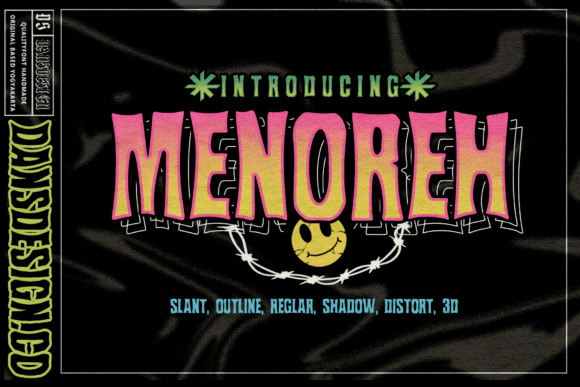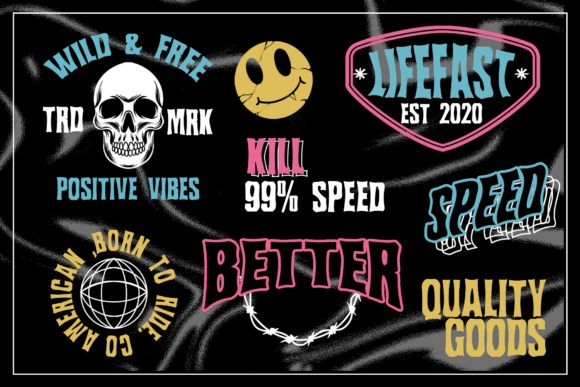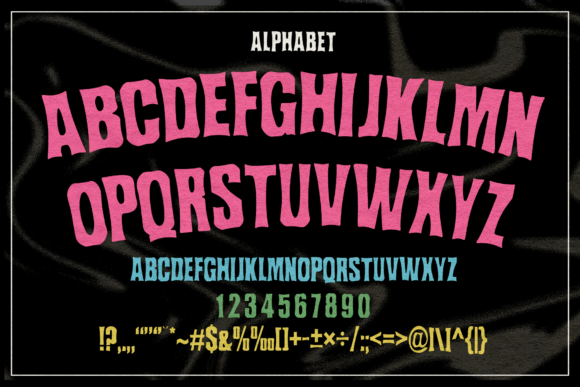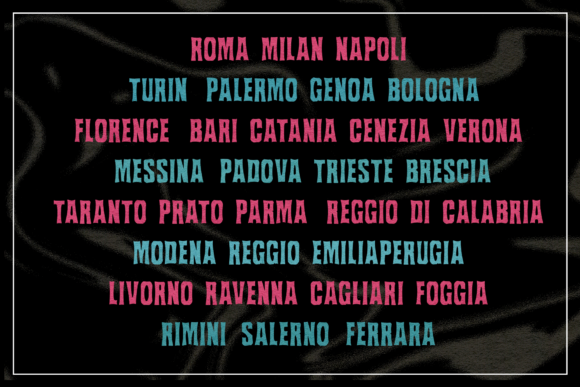
Menoreh Font: Bold Display Font with a Trendy Street Art Vibe
About the Menoreh Font
Unleash your creativity with Menoreh Font, a versatile font perfect for a wide range of applications. Menoreh is a bold and chunky lettered display font that has a trendy, street art vibe. This font is suitable for designs such as t-shirts, sportswear, logos, advertisements, clothing, and more.
Menoreh excels in headline applications, short impactful statements, and branding where a strong, urban aesthetic is desired. Its chunky letterforms command attention, making it ideal for posters, logos, and packaging for streetwear or similar brands. However, its bold weight and relatively large x-height render it unsuitable for body text or UI elements requiring high readability.
Pairing Menoreh effectively requires a complementary typeface that provides contrast. A clean sans-serif like Futura or a geometric sans-serif such as Bebas Neue would create a strong visual hierarchy. For a more playful feel, consider pairing it with a rounded sans-serif. Avoid pairing with other bold or heavily stylized fonts, as this could lead to visual clutter.
Menoreh projects a bold, rebellious, and undeniably modern personality. Its street art inspiration lends itself to brands that aim for a youthful, edgy, and confident image.